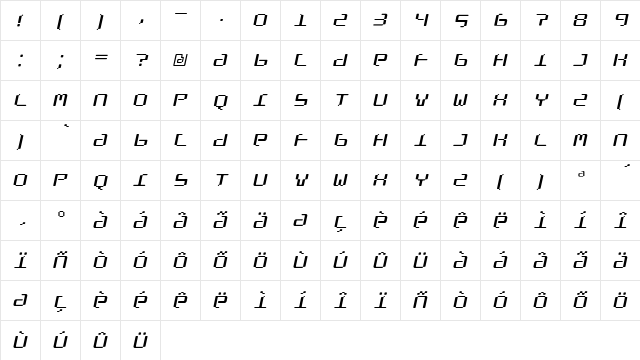
Terminal Italic
| Foundry | Dino dos Santos _ DSType, |
Design Context for Terminal Typeface
Terminal takes a measured approach to typography — its balanced proportions and neutral character make it a reliable workhorse for both digital and print work. The slanted form adds forward momentum and visual energy.